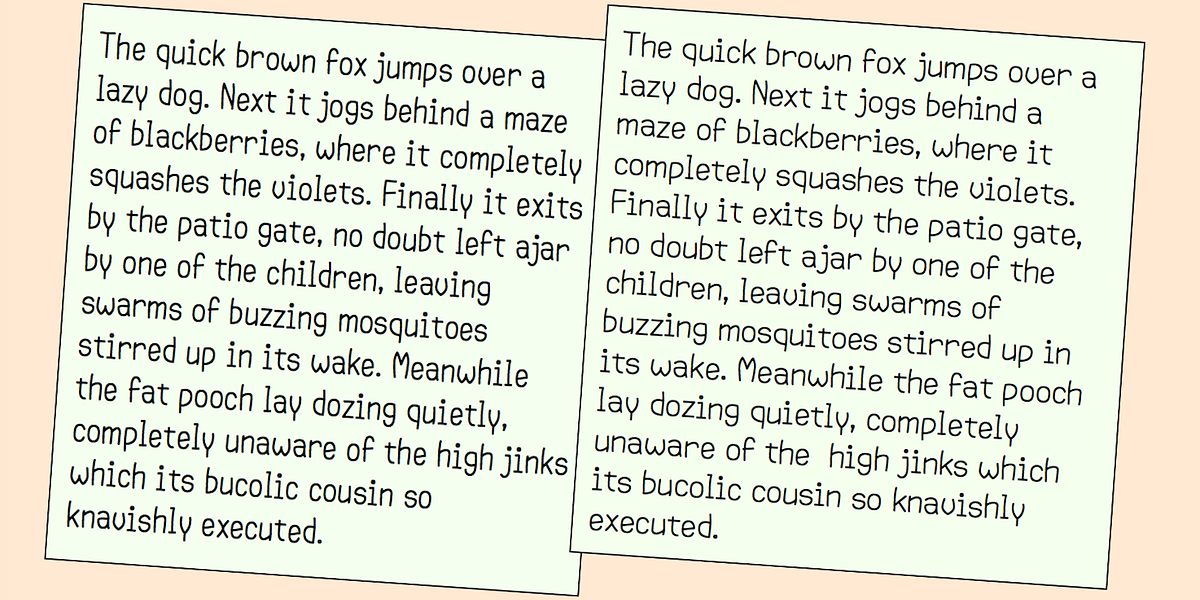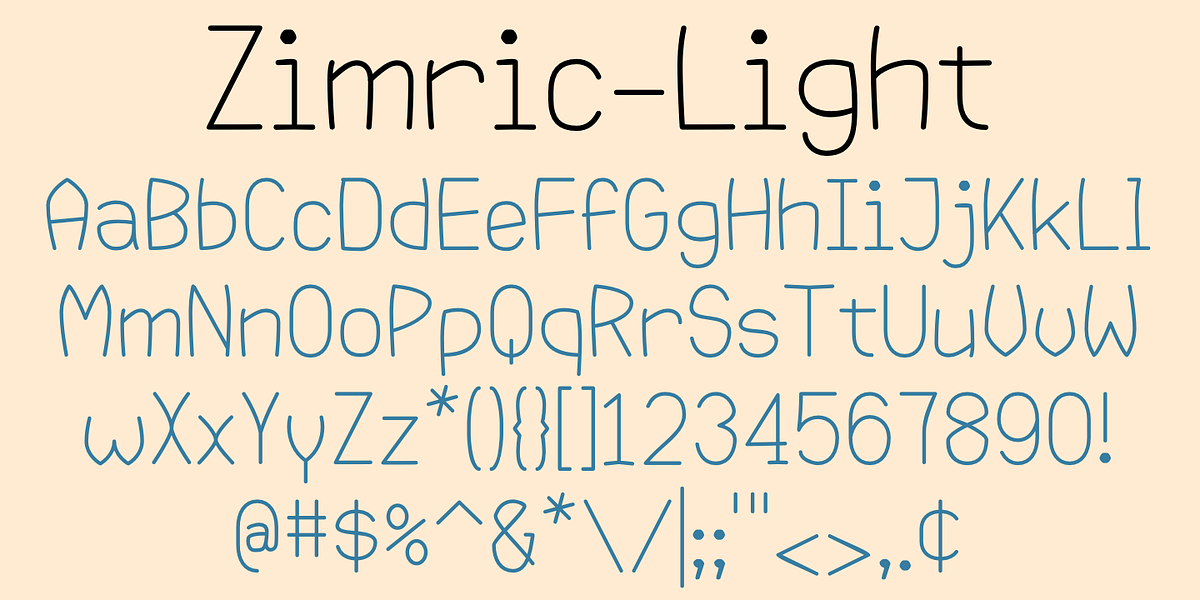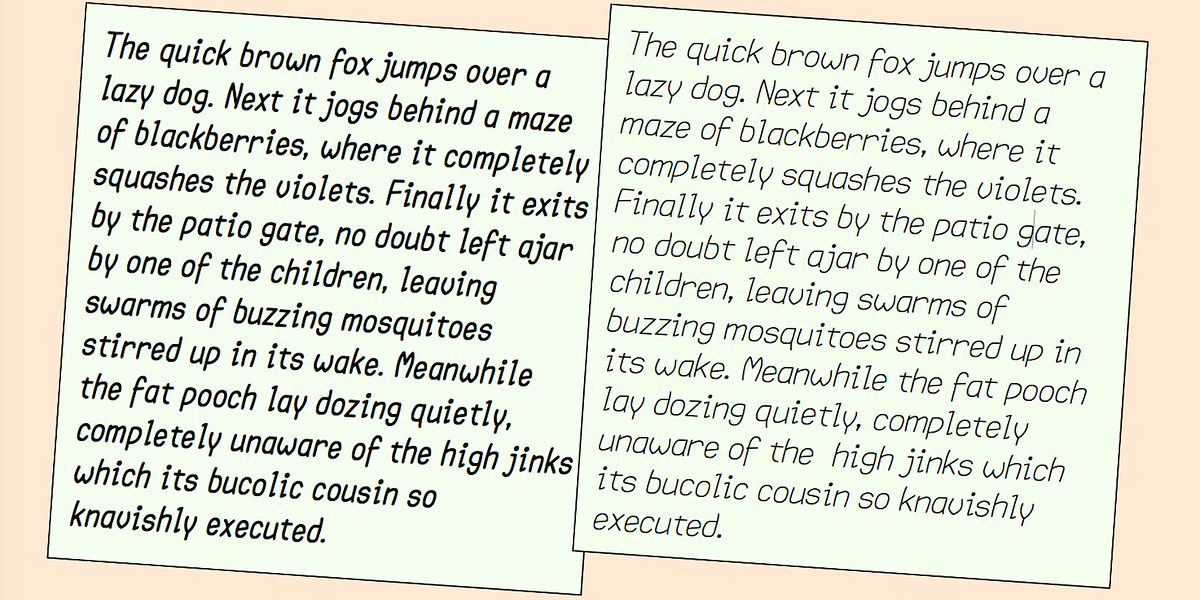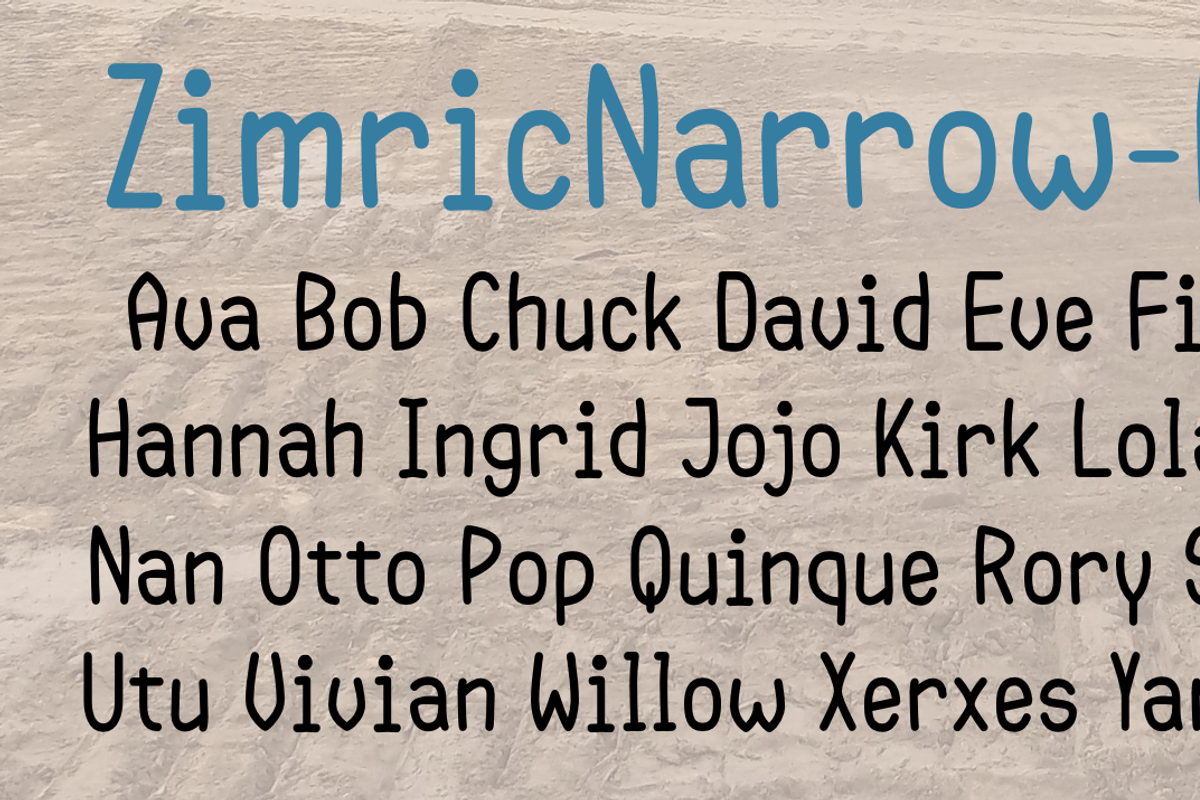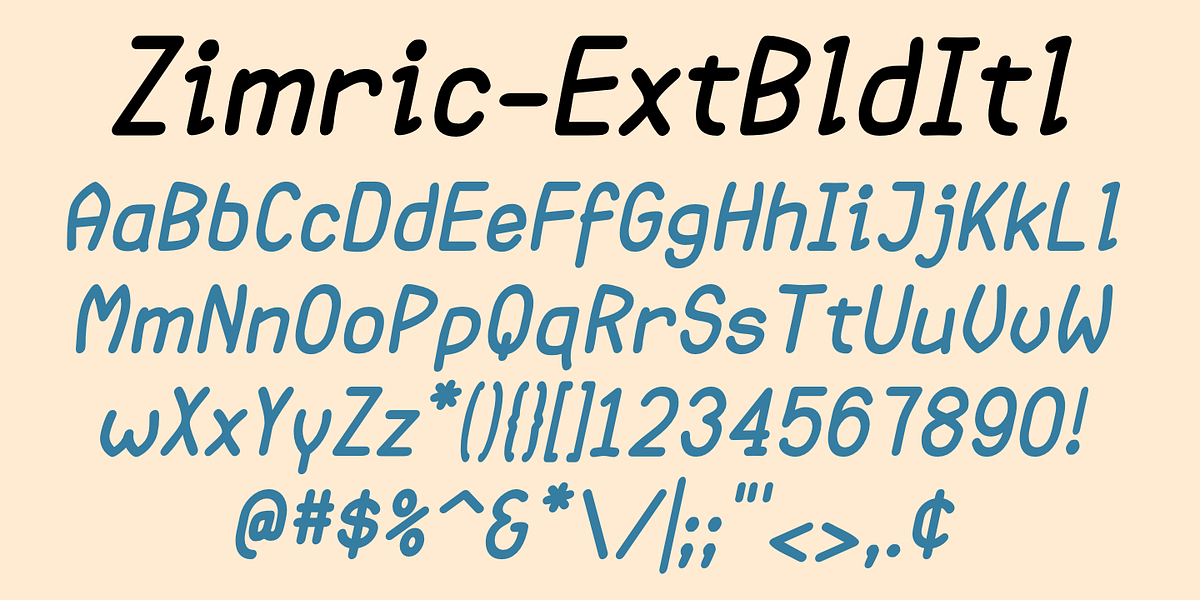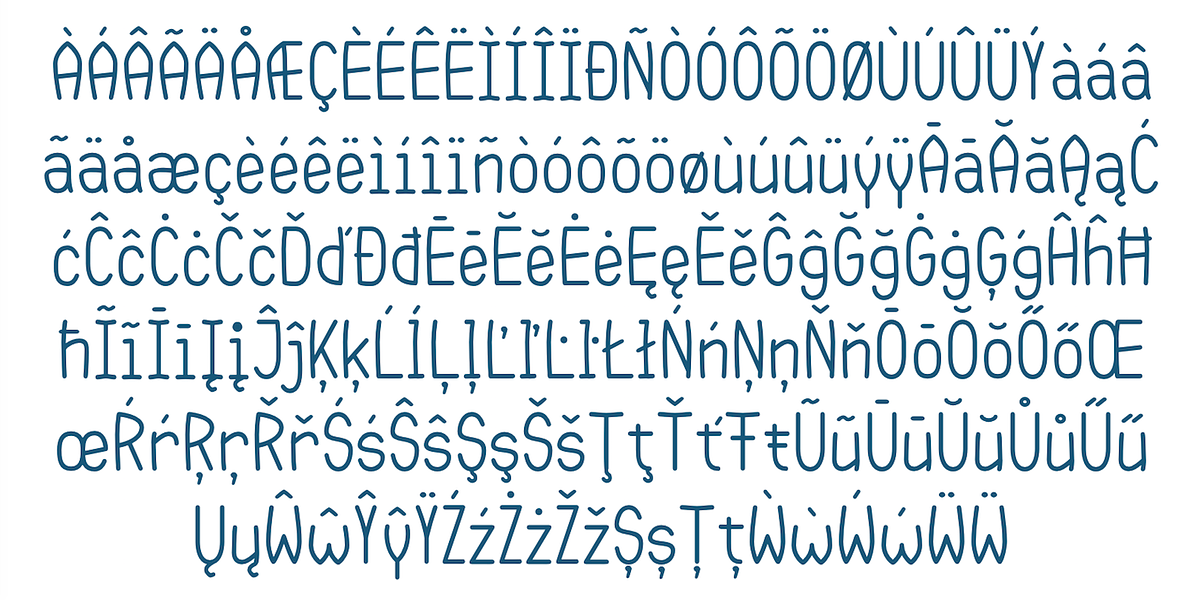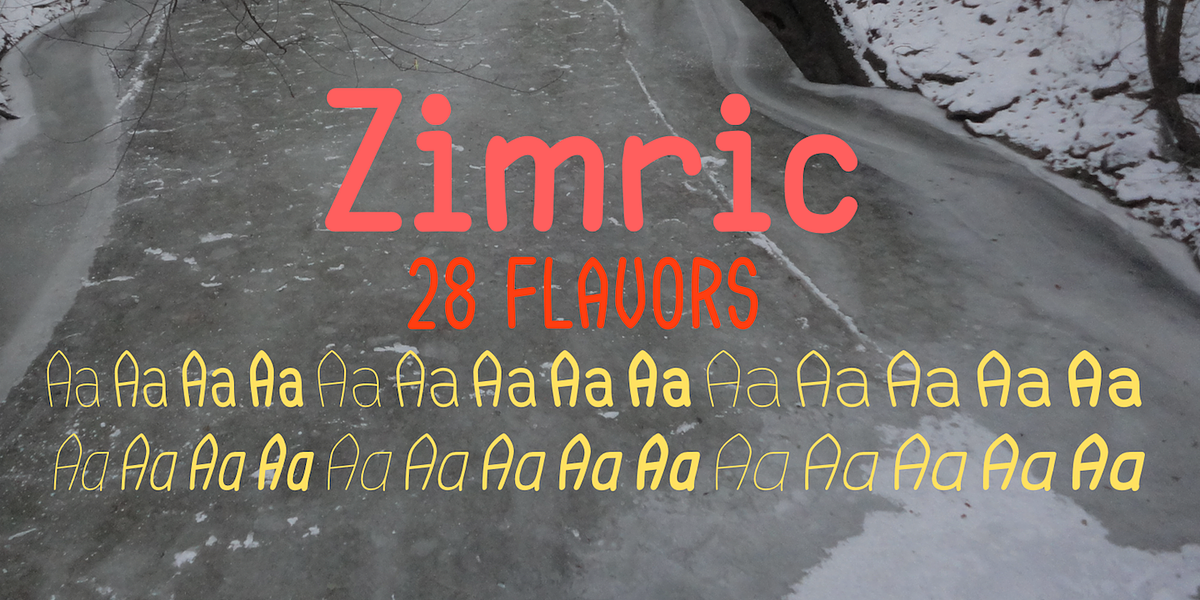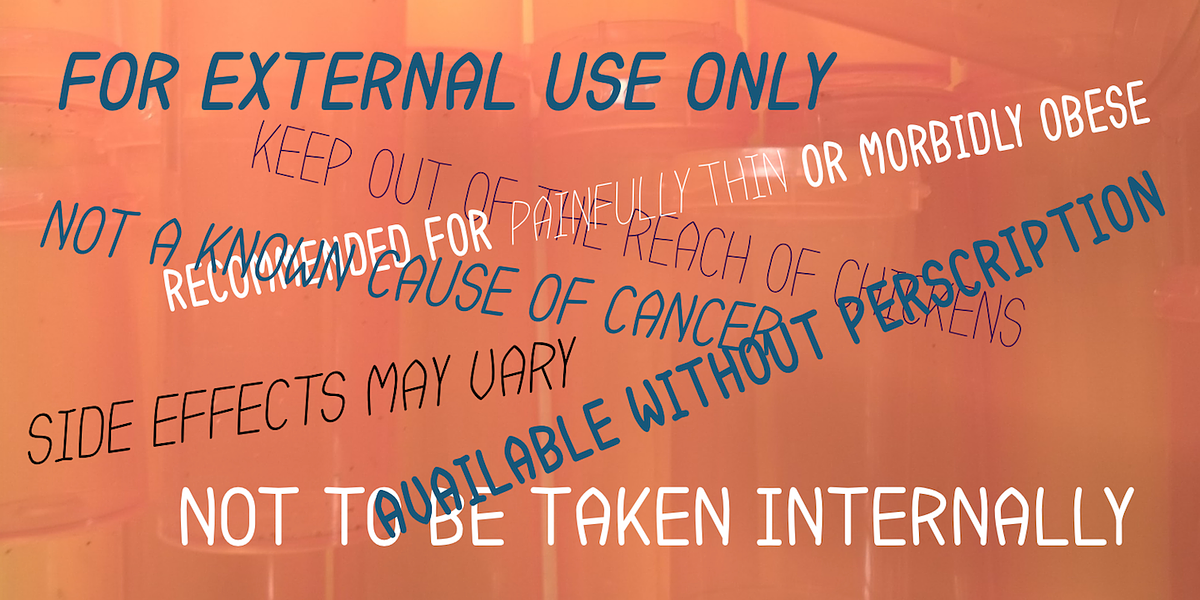
Zimric
Zimric is a versatile sans serif font family designed to resemble neat hand printing. It features a monolinear style with rounded corners, giving it a friendly and approachable appearance. The font is available in three widths (condensed, normal, and extended) and four or five weights per width, including both upright and italic styles.